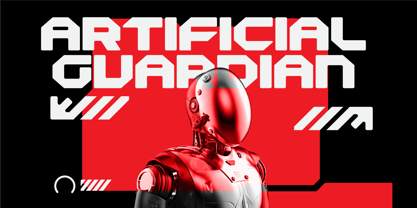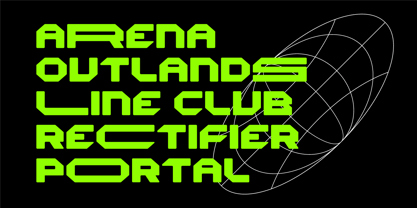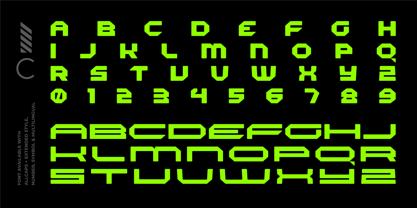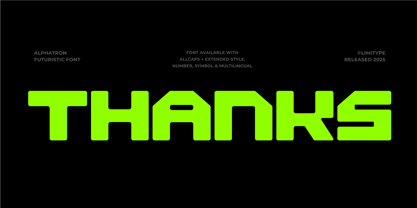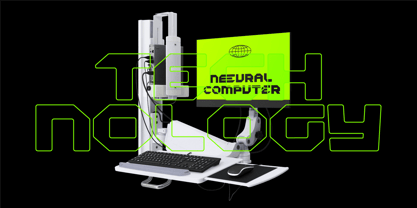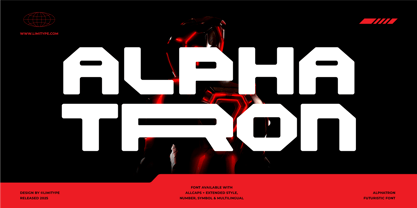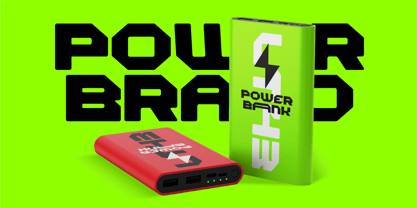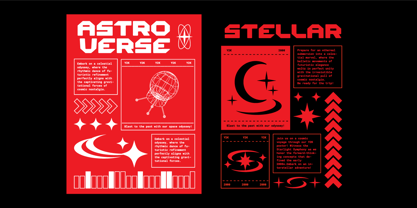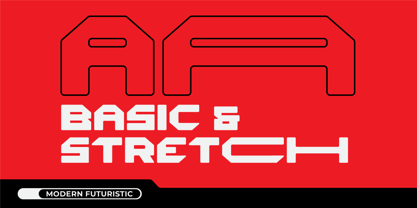
Alphatron
by limitype
The Alphatron Font Family was designed by Muhammad Muammar, Furqan Sudirman and published by limitype. Alphatron contains 1 styles.
Alphatron is a display font with a bold and futuristic style. Perfect for standout headline designs, poster, branding, and future themed digital projects, Alphatron also comes with adjustable stretch variations.
*To use the stretch version, simply use lowercase letters.